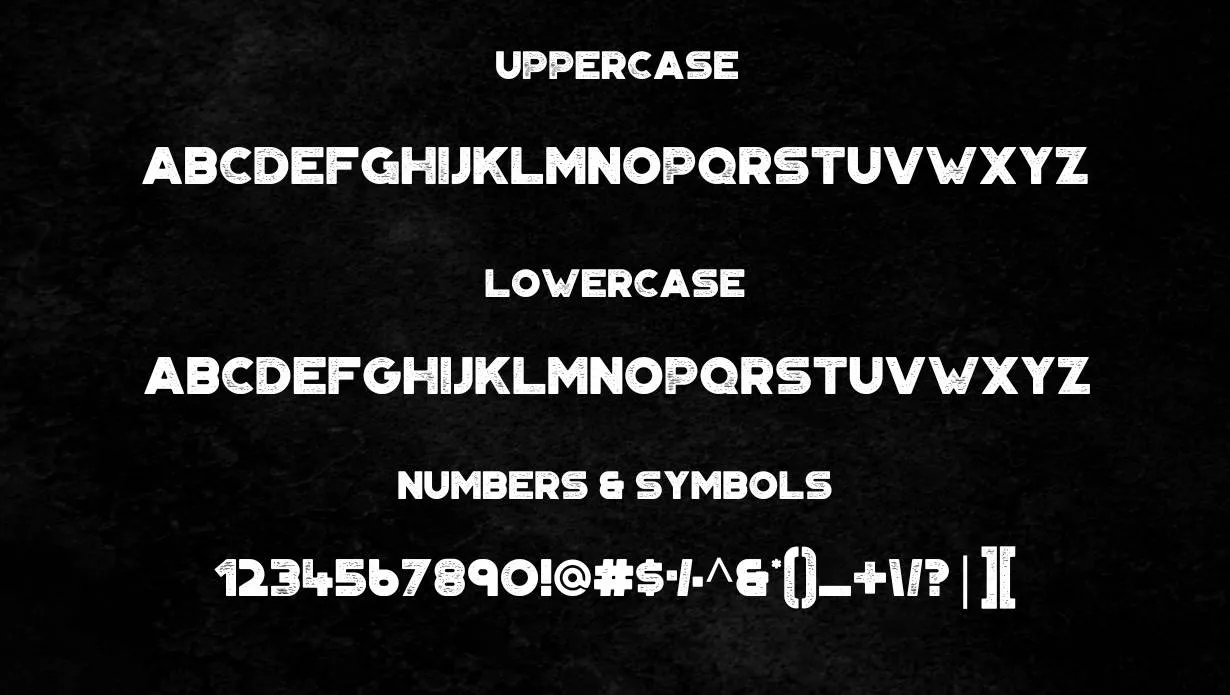
Portico font stands tall, offering a sense of structure and strength to your words reminiscent of the grandeur found in architectural marvels.
Like the pillars of a majestic building, it is ideal for conveying stability, making bold statements, and projects requiring strong and structured communication. Portico transforms your text into a visual monument, exuding a commanding presence.